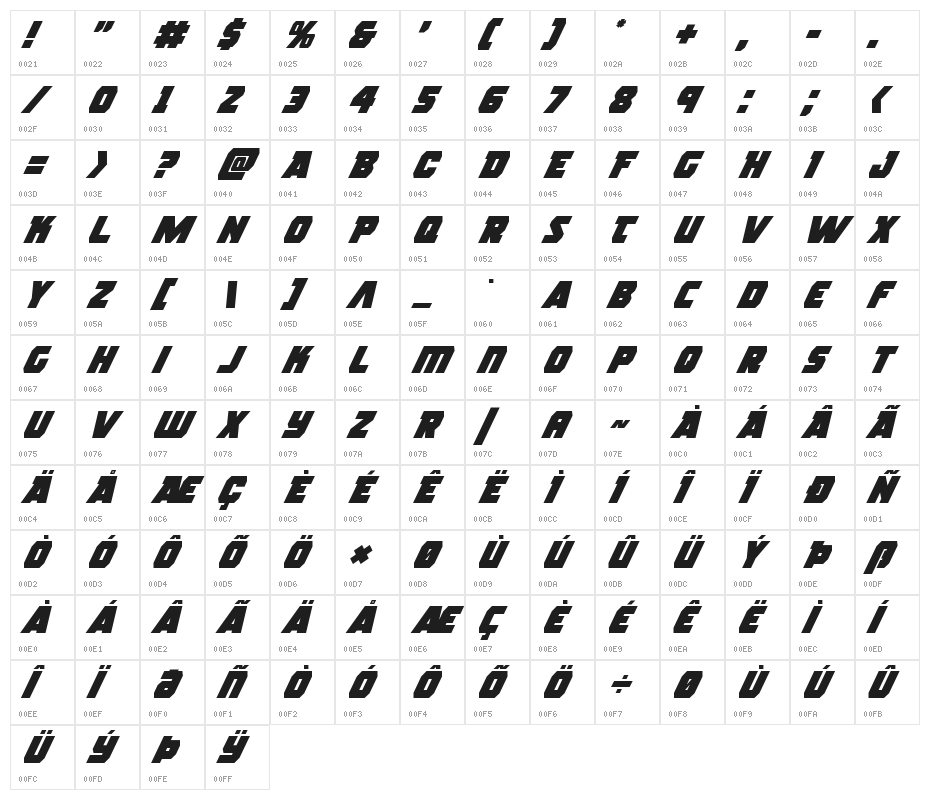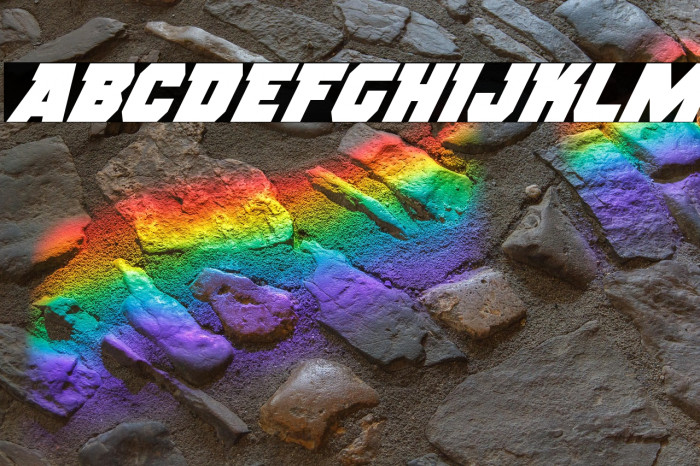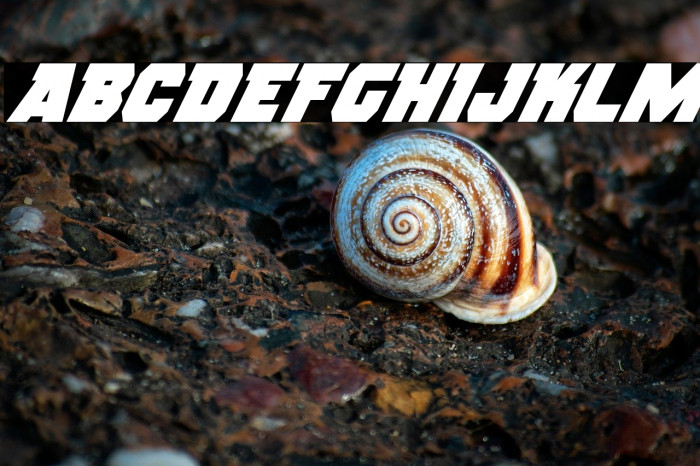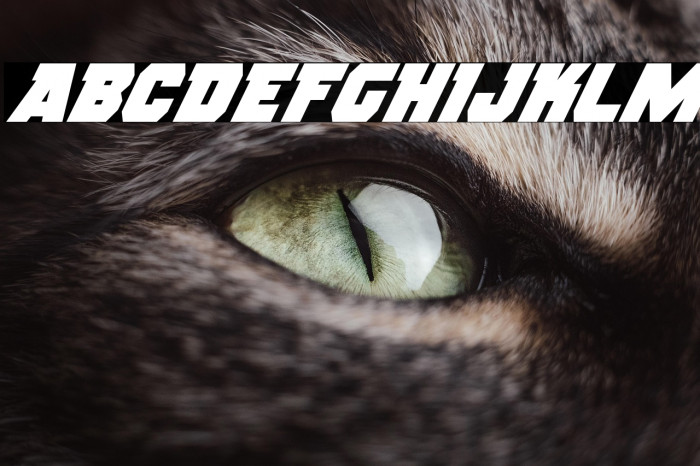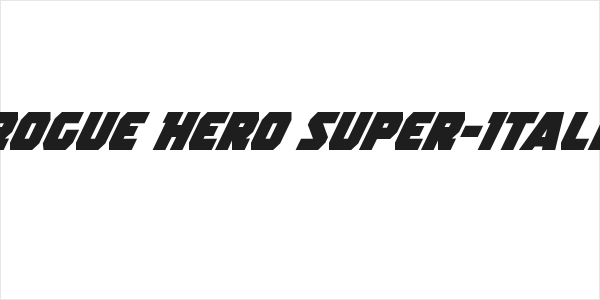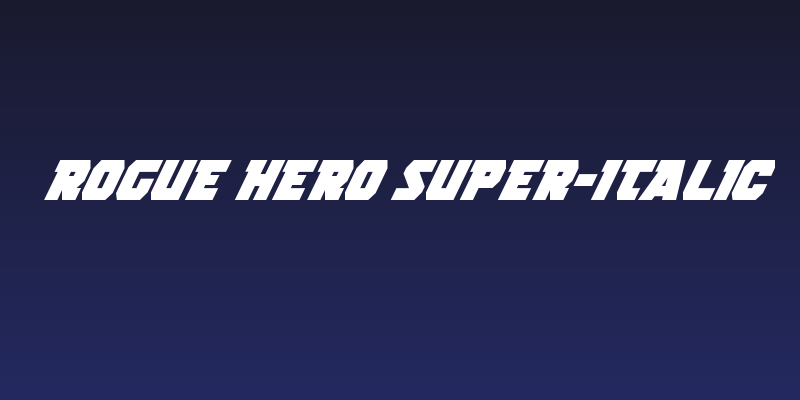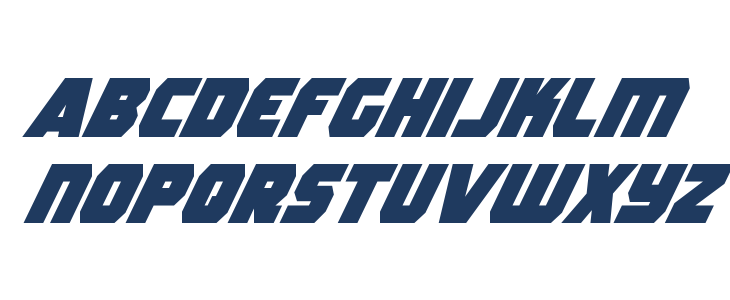
Rogue Hero Super-Italic Font
Rogue Hero Super-Italic Description
This font exhibits a bold, dynamic style with a strong italic slant, giving it a sense of motion and energy. The characters are robust and angular, with sharp edges and a distinct geometric influence. The uppercase and lowercase letters maintain a consistent weight, contributing to a cohesive and impactful appearance. The numerals and special characters are designed with the same boldness, ensuring uniformity across all glyphs. This font's aggressive and modern aesthetic makes it suitable for projects that require a strong visual impact.
| Proposed Projects | Ideal for sports branding, action movie posters, video game titles, and dynamic advertising campaigns. |